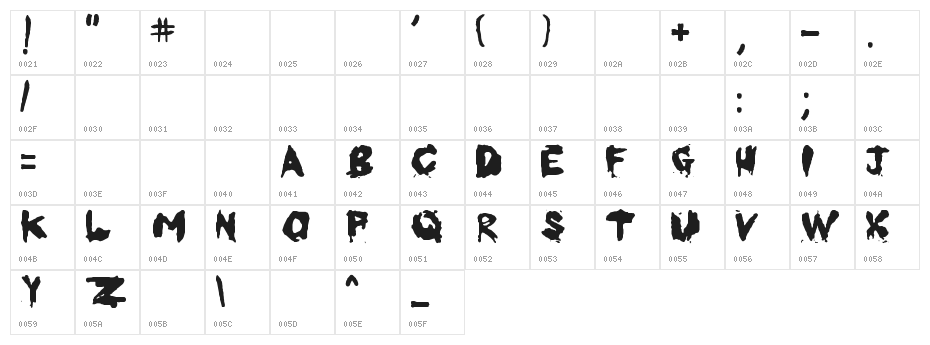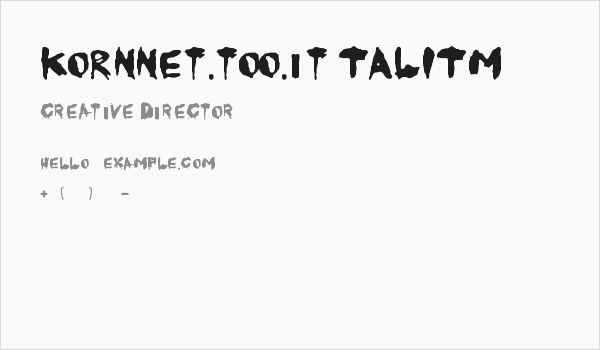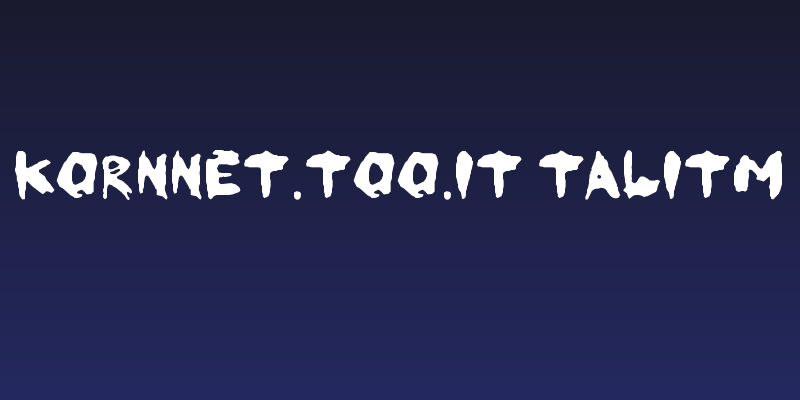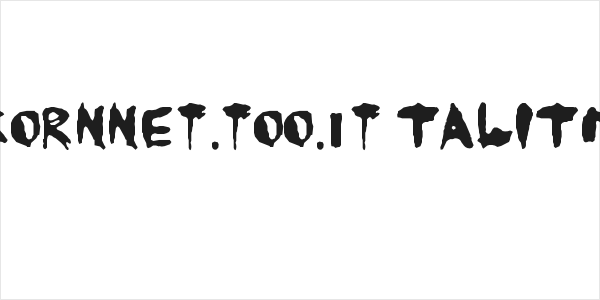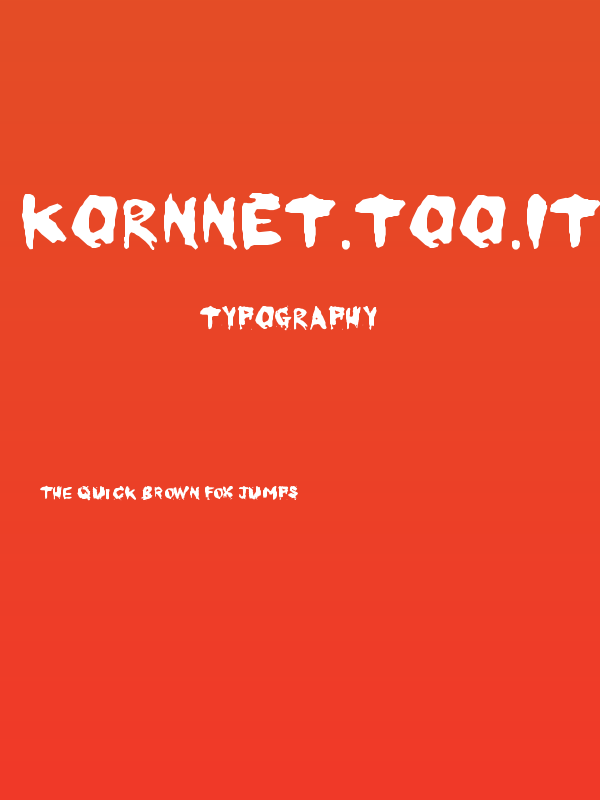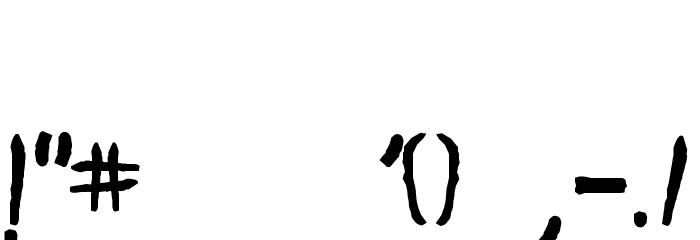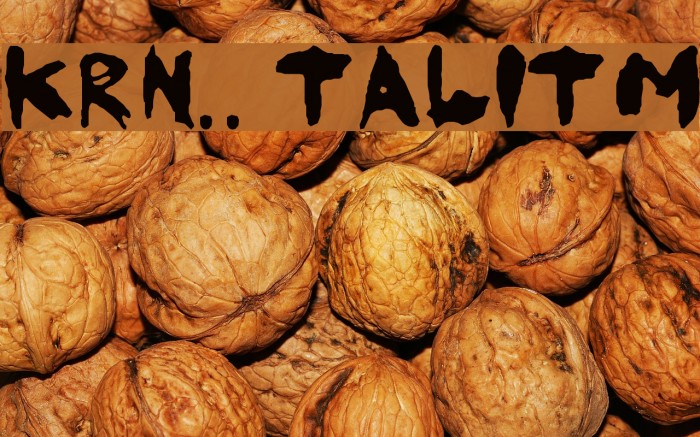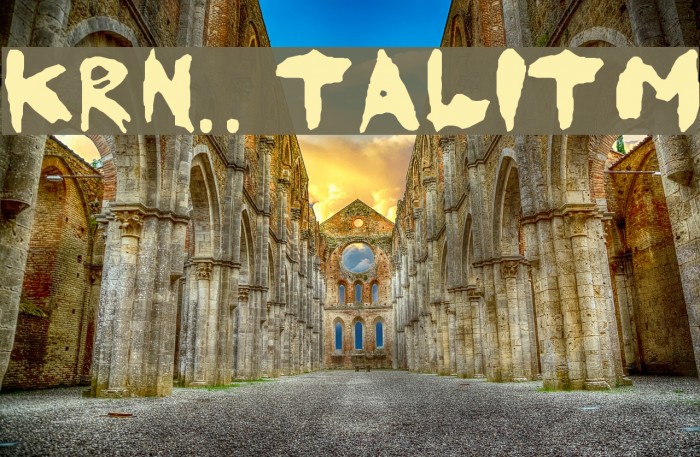
KoRnNet.too.it TALITM Font
KoRnNet.too.it TALITM Description
This font features a bold, grunge-inspired style with a distressed appearance, reminiscent of ink splatters or paint drips. The characters are irregular and rugged, giving them a raw and edgy feel. The uppercase and lowercase letters maintain a consistent design, with jagged edges and uneven strokes that create a sense of movement and energy. The numbers and special characters follow the same aesthetic, ensuring a cohesive look across all elements. This font is ideal for projects that require a bold and unconventional appearance, such as music album covers, posters, or branding for alternative or punk-themed events.
| Overall Style | Grunge, Edgy, Raw |
| Proposed Projects | Ideal for music album covers, posters, and branding for alternative or punk-themed events. |